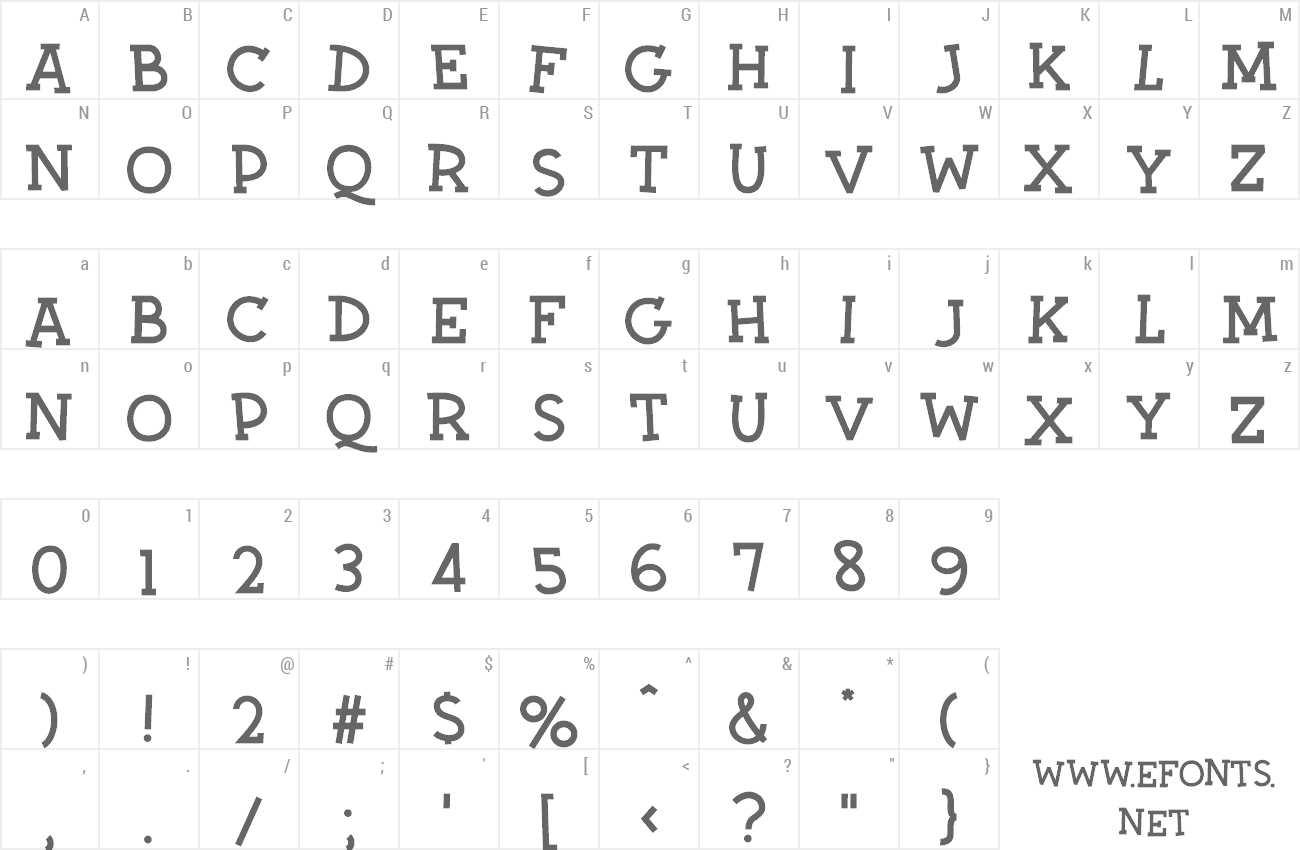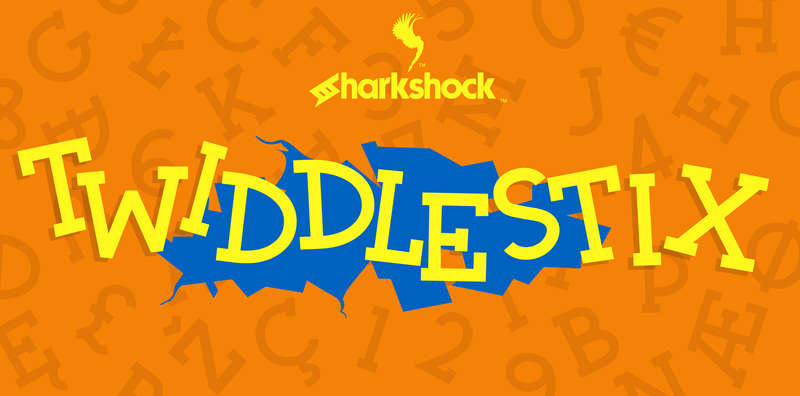
OTF: Twiddlestix Dennis Ludlow 2016 all rights reserved by Sharkshock dennis@sharkshock.net Add a little wackiness to your next project. Twiddlestix is a whimsical display font designed with an emphasis on fun. This irregular serif contains basic latin, extended latin, diacritics, punctuation, and kerning. The lowercase characters display some variants to their uppercase counterparts and serve as "alternates". Although kerning is added slight overlap should be expected especially with European accents. Use Twiddlestix for a children's book, school project, or toy packaging. Many languages are supported but additional characters can be added for a fee. This font like my others are free for personal use only as long as this readme file stays intact. For commercial use please contact me at dennis@sharkshock.net to discuss an end user license agreement. You can also visit www.sharkshock.net/license for more info and terms. I also design custom fonts for companies, logos, and many other things. If you'd like to leave me a PayPal donation you can use my email address above. Your generosity will be most appreciated! Thank you for your support! More... |